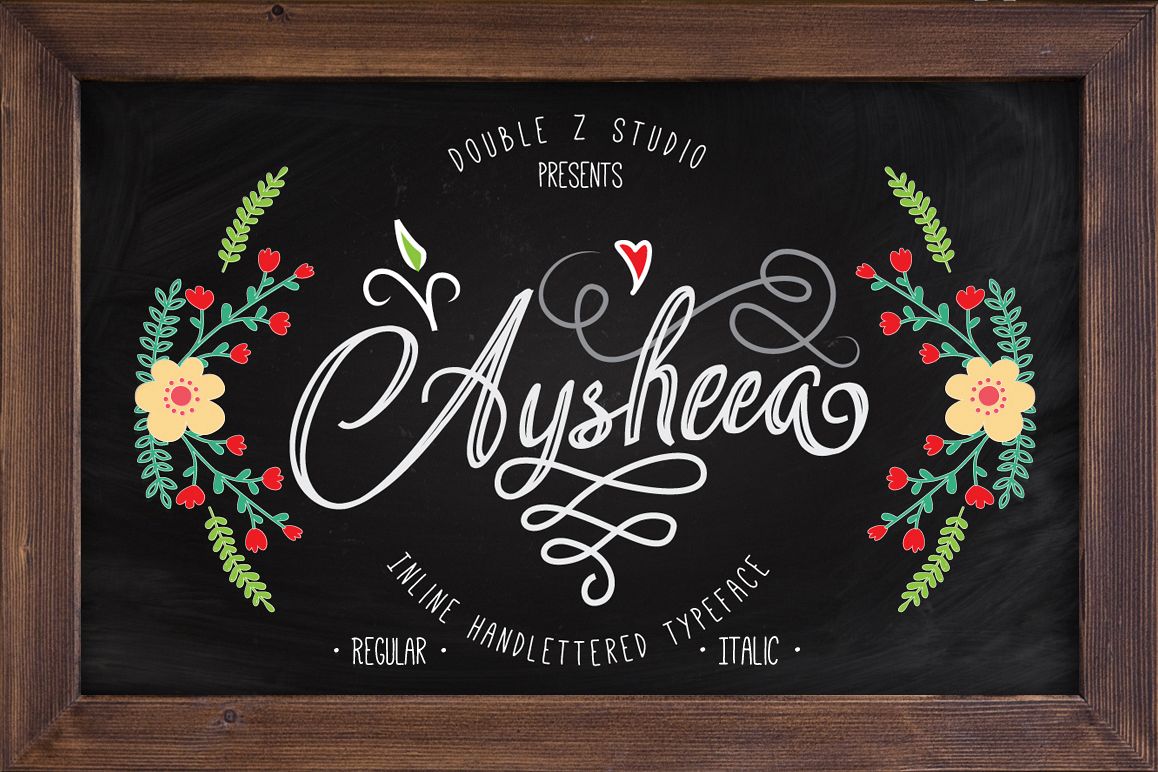
Aysheea - Inline Script
Aysheea is a beautiful new style inline script, comes in regular and italic.The flow is smooth, so perfect for designing book covers, film covers, apparel, cards, logos, posters, etc. Opentype features gives you more alternatives in designing.
About Aysheea
Aysheea is a beautiful new style inline script, comes in regular and italic.The flow is smooth, so perfect for designing book covers, film covers, apparel, cards, logos, posters, etc. Opentype features gives you more alternatives in designing.
Basic Latin A-Z and a-z
Numbers
Symbols
Swash
Stylistic Set
Ligature
Multiple language support.